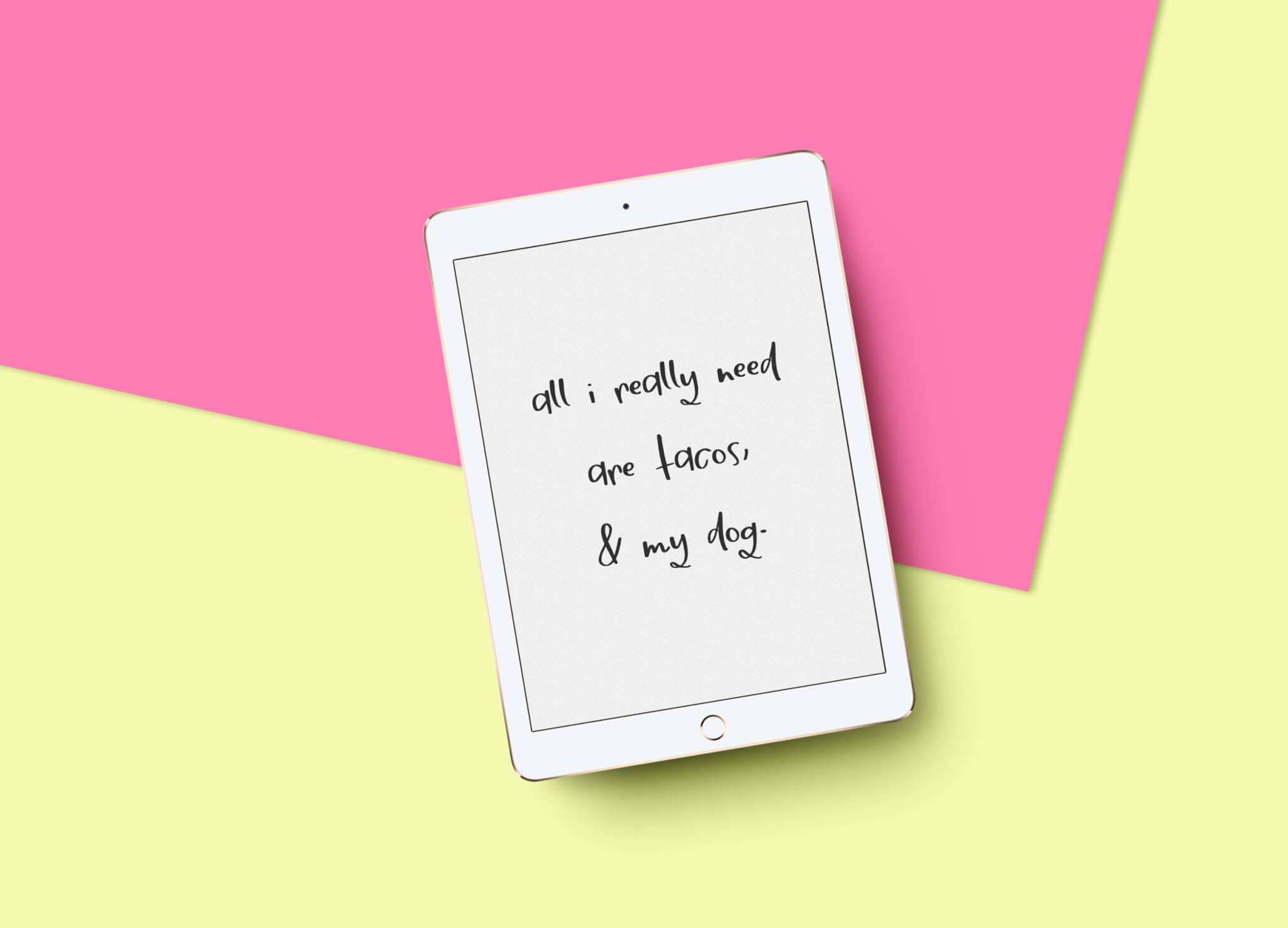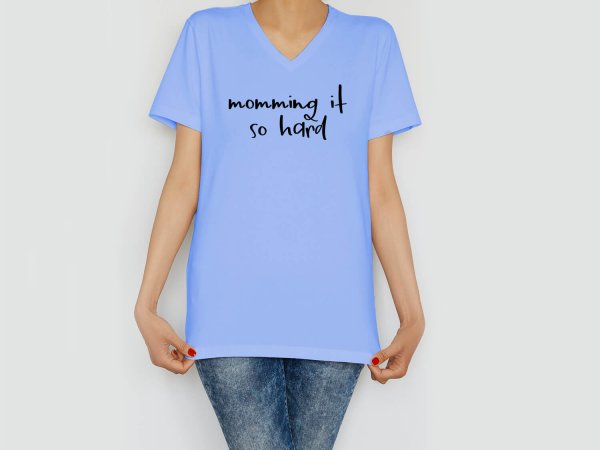
Springbreak Script Font
Springbreak Script Font is a fresh and bouncy handlettered print typeface. Super easy to read, with just enough playfulness and flow.
Springbreak Script Font is a quirky, funky font which was inspired by a spring break vacation. As a result, it’s playful, fun & laid back as a vacation should be.  Because of its super legible and fun nature, Springbreak would be an excellent fit for a child-centric brand or classroom learning materials.